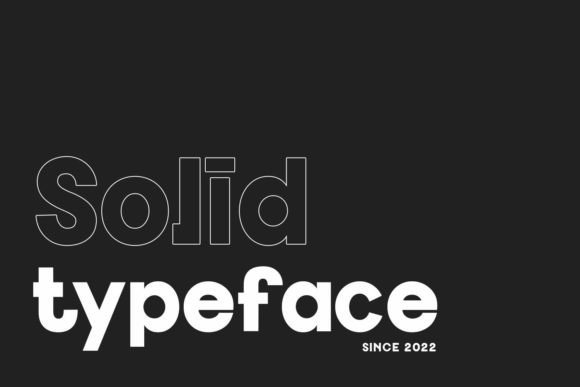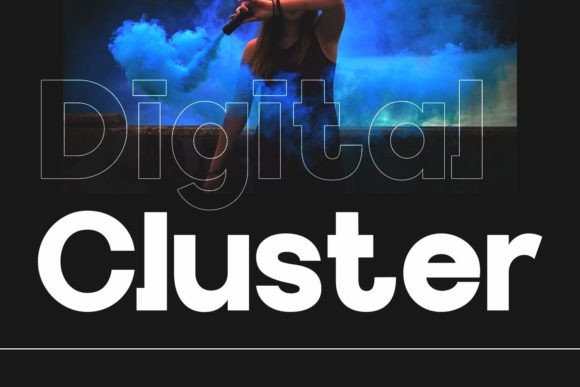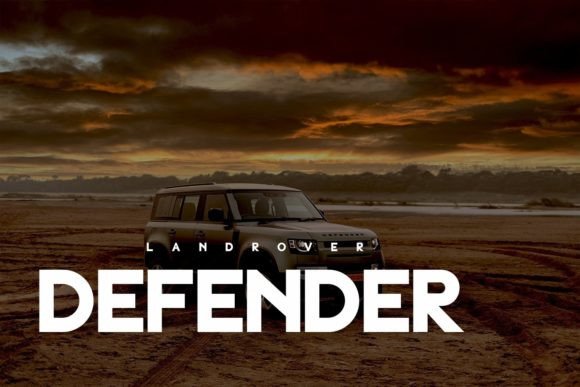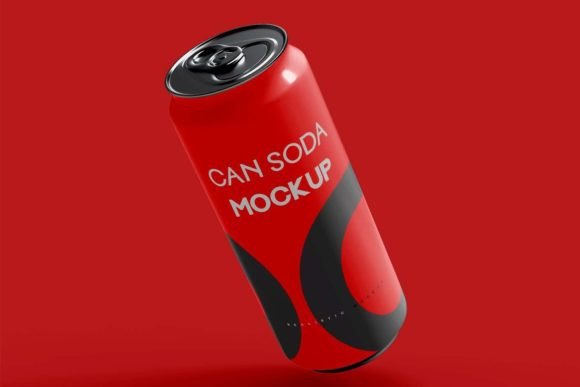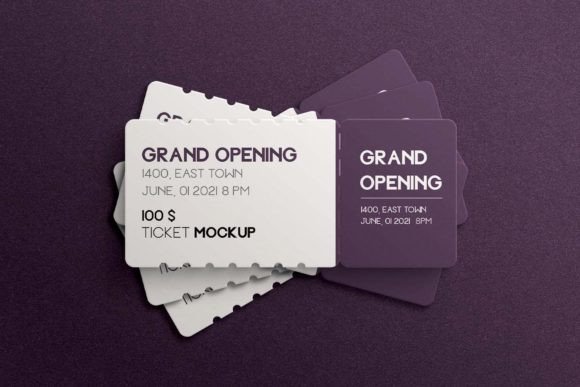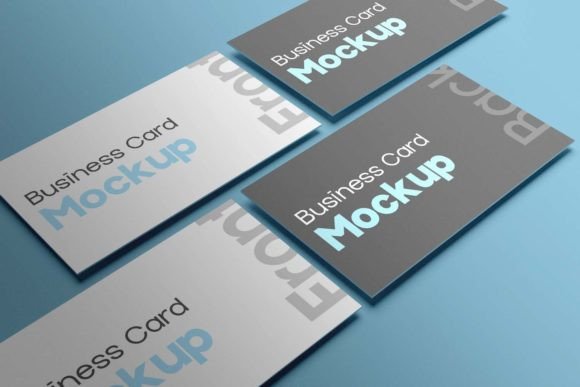
Introduction to Norwick Font
Norwick is a stunning modern typeface that boasts clean lines and sharp edges.
An extremely versatile font, it is perfect for logos, weddings, invitations, quotes, advertisements, print, magazines, and more Norwick Display is perfect for designs that need to have a traditional, antique feel while still being sleek and minimalist.
Key Features of Norwick Font
Why Choose Norwick Font?
Norwick Font offers exceptional quality and versatility, making it a valuable addition to your design toolkit. Whether you’re creating for personal projects or commercial use, Norwick Font delivers professional results.